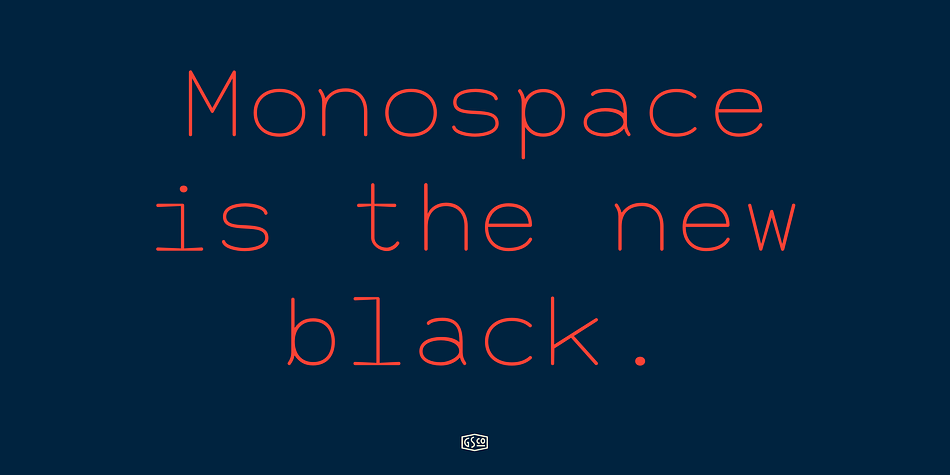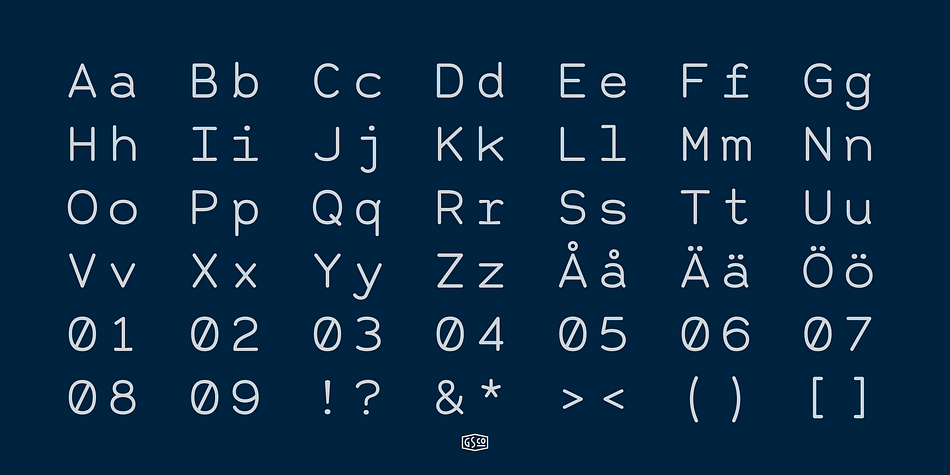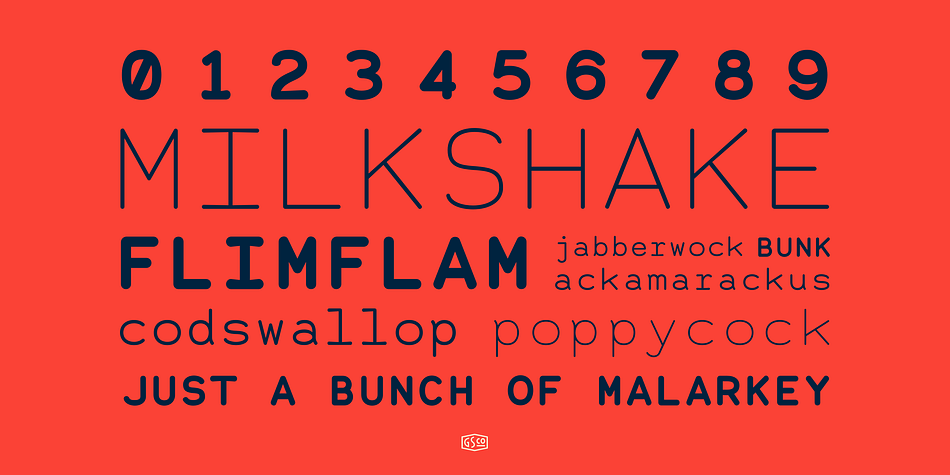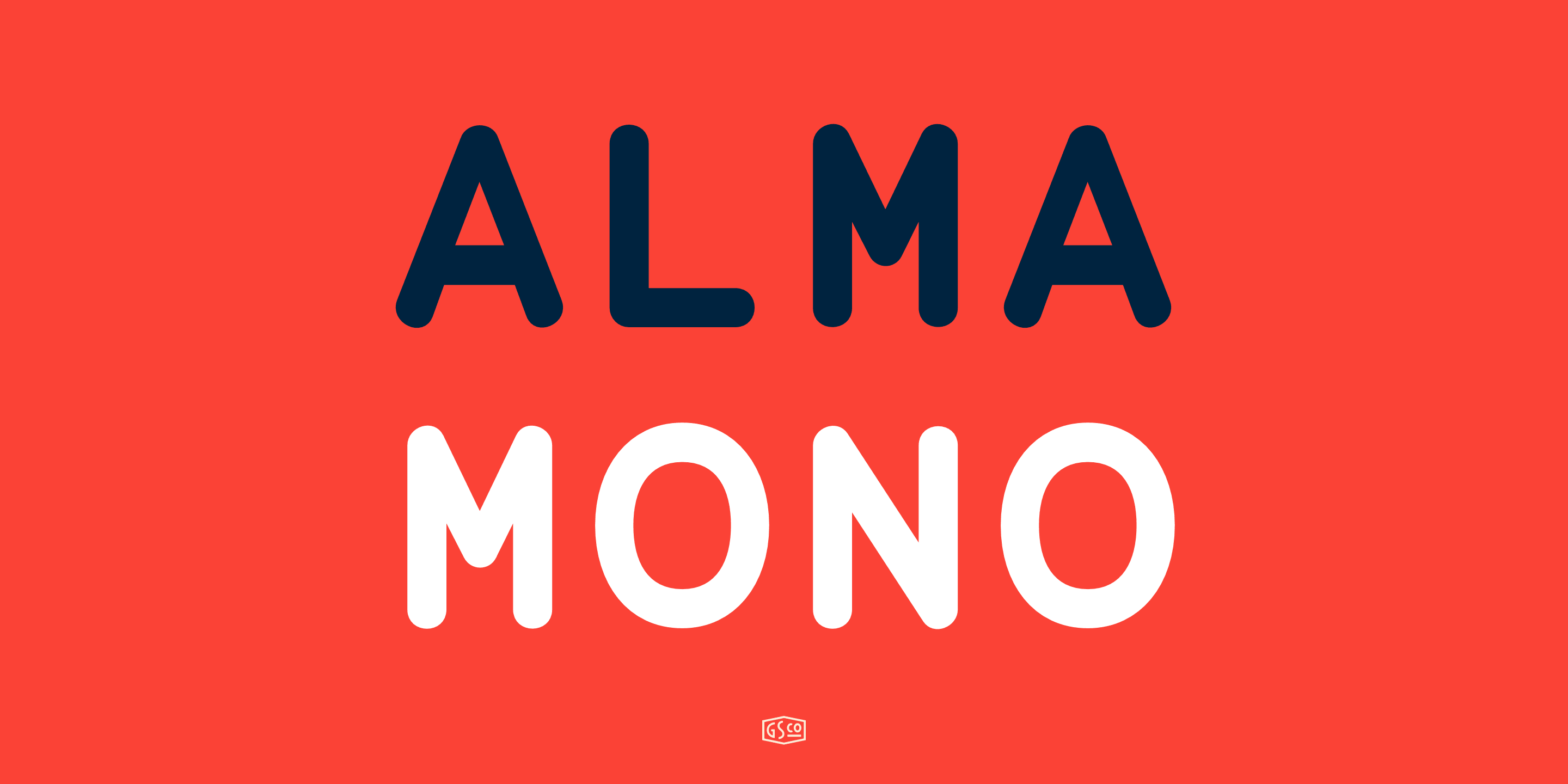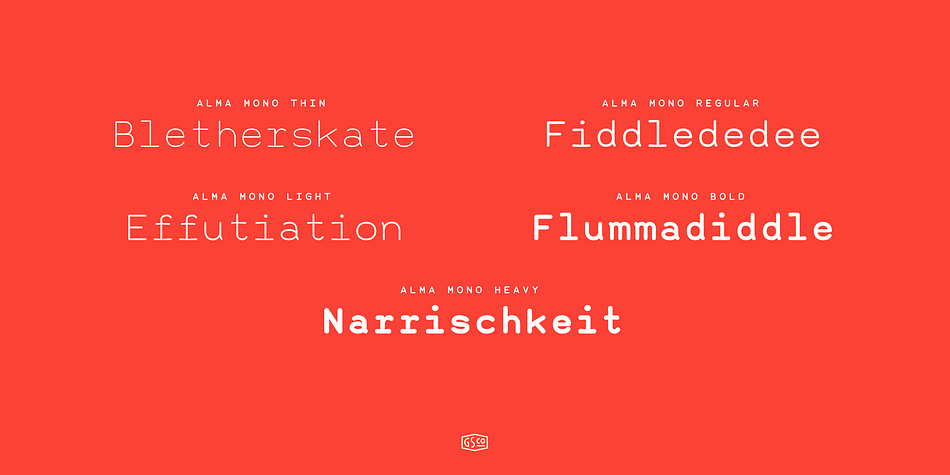
Designed by Daniel Feldt, Alma Mono is a typewriter font family. This typeface has five styles and was published by Great Scott.
Alma Mono is a monospace typeface with a friendly personality. It comes in five weights and its rounded ends convey a more friendly atmosphere then a more mechanical monospace.
It was designed and release in its first version in may 2016. Updated regularly and the last major one was in the autumn of 2016.